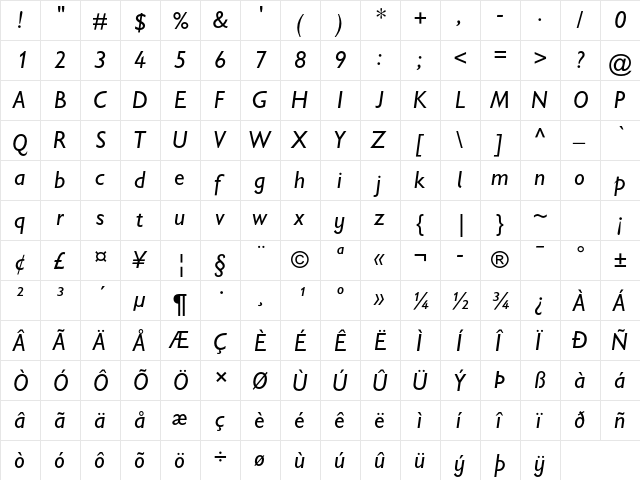
Gill Sans Infant Std Italic
Design Context for Gill Sans Infant Std Typeface
Gill Sans Infant Std is a composed and adaptable typeface that performs quietly and consistently across a wide range of design contexts. The dynamic lean of this cut emphasises speed and emphasis in any layout.